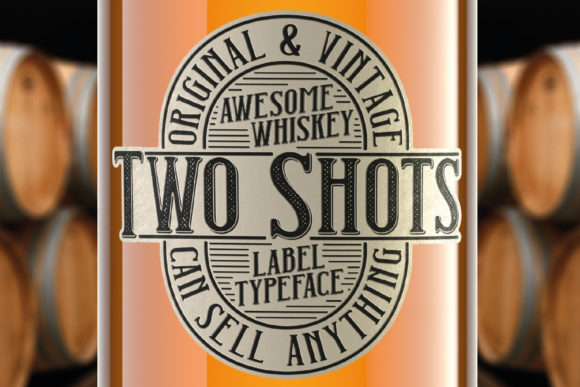
Two Shots Font
Journey through the annals of typographic elegance with Two Shots, a display font that exudes vintage charm and timeless appeal. This meticulously crafted masterpiece will transport your designs to a bygone era, evoking a sense of nostalgia and authenticity. Unleash your creativity and let Two Shots work its magic, transforming your projects into visually captivating works of art.
Picture the allure of classic signage, the warmth of handwritten letters, and the sophistication of vintage posters. Two Shots embodies these elements, capturing the essence of a time when typography was an art form. Its carefully designed characters dance across the page, telling stories and capturing imaginations.
With Two Shots as your creative companion, you'll discover endless possibilities. Craft logos that resonate with a timeless elegance, design posters that evoke a sense of wanderlust, or create social media graphics that exude a retro charm. The versatility of Two Shots knows no bounds, making it the perfect choice for a wide range of design projects.
Immerse yourself in the world of Two Shots and let your creativity soar. This vintage-inspired display font will add a touch of sophistication and nostalgia to your designs, leaving a lasting impression on your audience. Embrace the beauty of the past and create designs that stand the test of time with Two Shots.